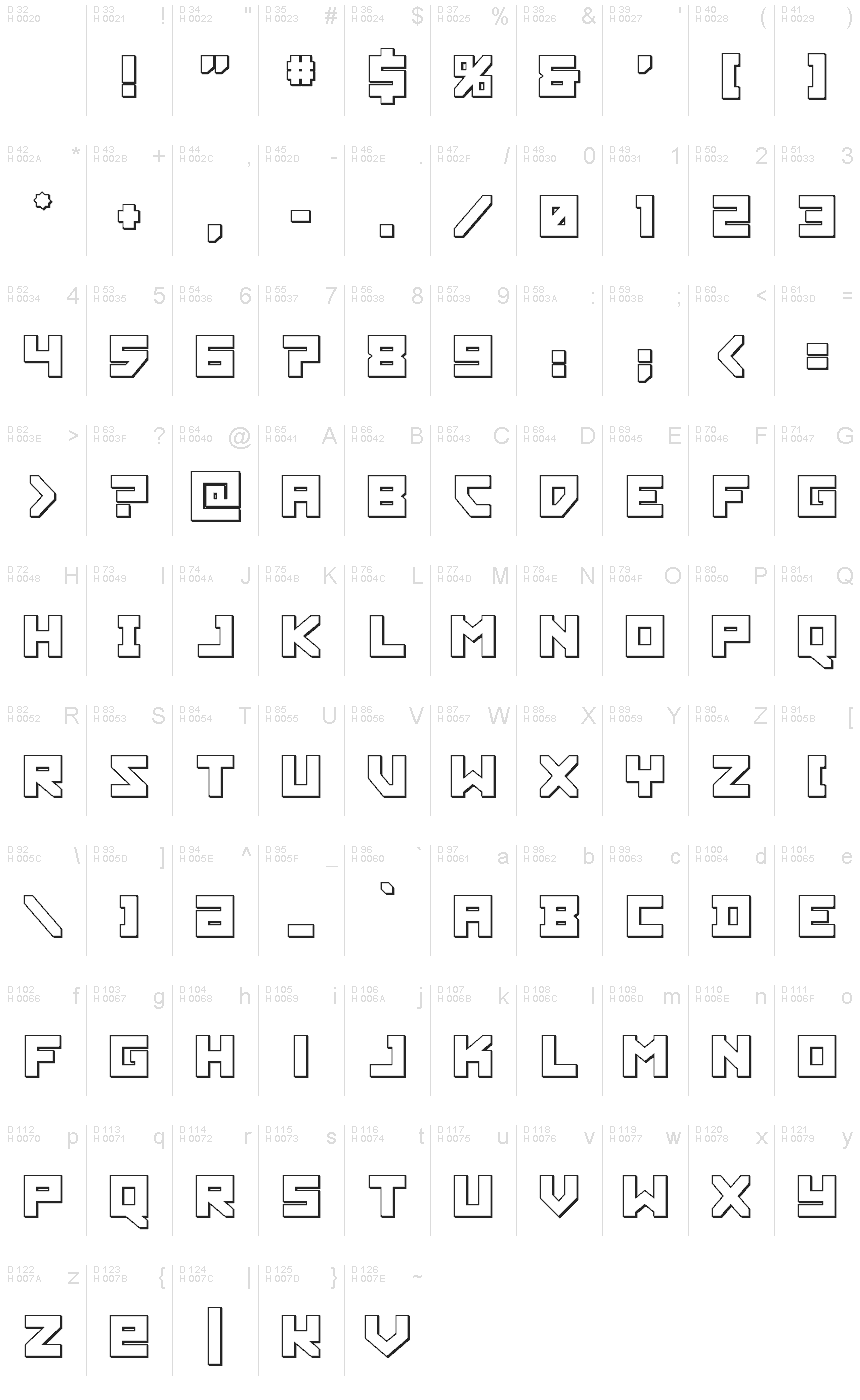
Hibernal Sentry 3D
Hibernal Sentry 3D, a new font inspired by the 80s and 90s techno music scene and the iconic characters, logotypes, and screen titles that went hand in hand with it, is a free donationware font, designed by Iconian Fonts, that embodies its theme in every detail.
The font is a display font with a retro geometric design in which each letter is a multi-layered three-dimensional structure, bringing the retro techno scene back with every single letter. Its techno vibe makes it perfect for all your digital needs, like logotypes and album covers, website headlines and section titles, posters, stickers, postcards, and many more.